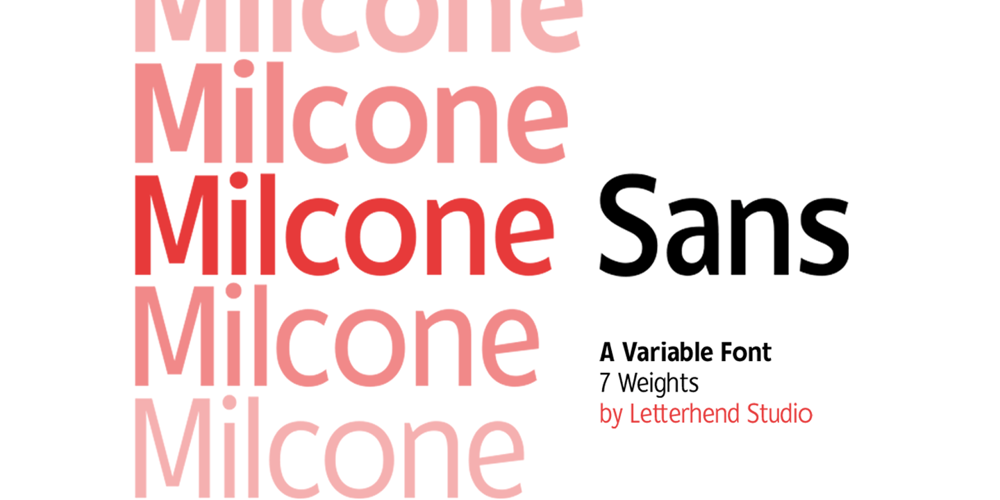
Milcone
Milcone font
Milcone Font Family was designed by Hendry Juanda and published by Letterhend. Milcone contains 7 styles and family package options. Introducing Milcone Sans, a versatile variable font designed to elevate your projects with a modern and professional touch. With its 7 weight variations, this font offers flexibility and adaptability to suit any design need. Whether it’s for digital or print, Milcone Sans delivers a sleek and contemporary aesthetic that exudes professionalism.Features : Uppercase & lowercase Numbers and punctuation Alternates & Ligatures Multilingual PUA encoded We highly recommend using a program that supports OpenType features and Glyphs panels like many of Adobe apps and Corel Draw, so you can see and access all Glyph variations.